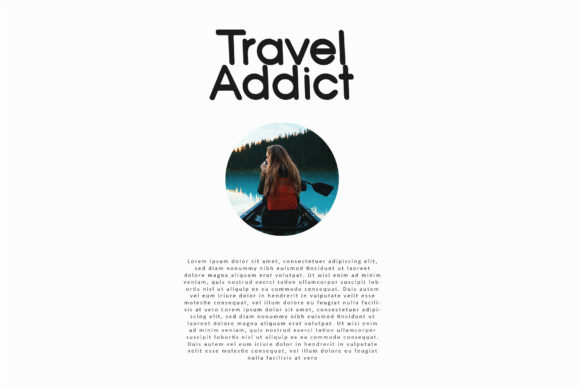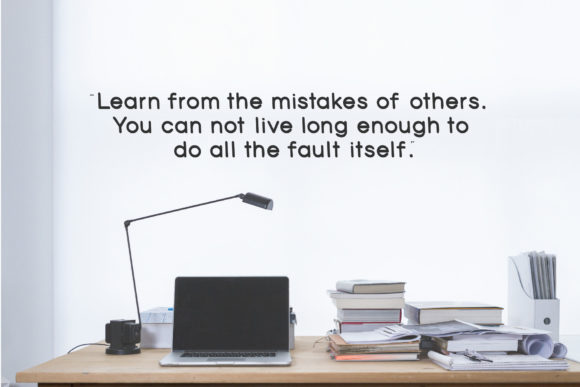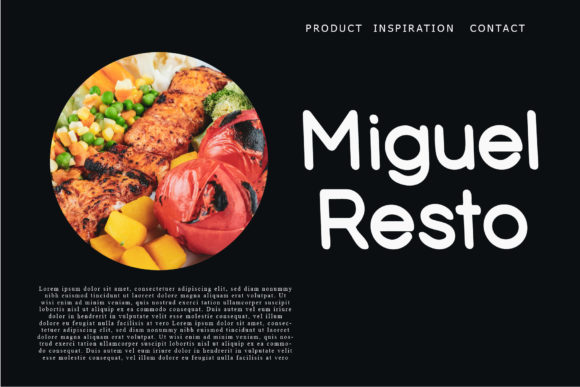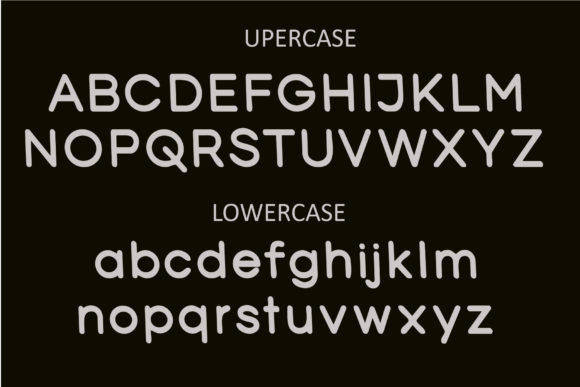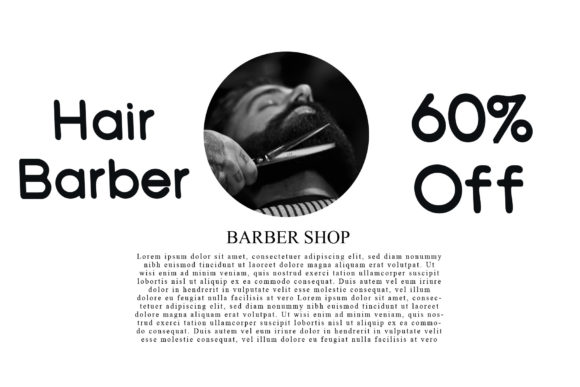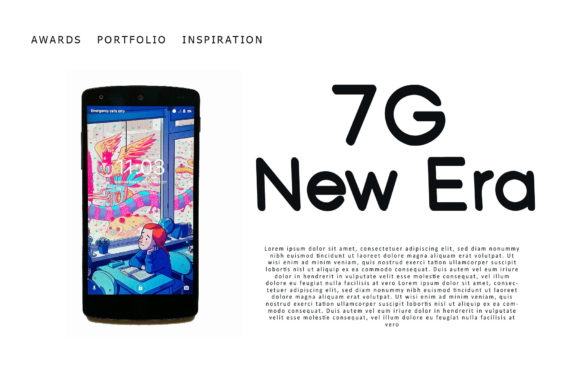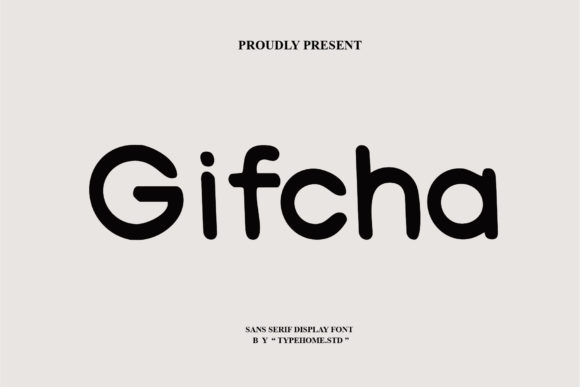
Gifcha Font: Elevate Your Designs with a Cool, Modern, and Authentic Display Font
In the world of digital design, typography plays a crucial role in conveying messages, expressing creativity, and capturing the audience’s attention. For designers and crafters looking for a font that embodies modernity, authenticity, and a touch of minimalism, Gifcha Font is an excellent choice. This versatile display font is perfect for a wide range of design projects, from web designs and business cards to posters, flyers, and more.
What Makes Gifcha Font Stand Out?
Gifcha Font is described as a cool, modern, and authentic display font. Its unique characteristics make it an ideal choice for designers who want to add a trendy touch to their work. Here are some key features that set Gifcha Font apart:
- Modern Aesthetic: Gifcha Font boasts a contemporary look that aligns with current design trends. Its sleek lines and stylish curves make it perfect for projects that require a fresh and modern feel.
- Authentic Touch: Despite its modernity, Gifcha Font maintains an authentic charm that prevents it from feeling too generic or overused. This balance of modernity and authenticity makes it versatile for various design applications.
- Minimalist Appeal: The font’s minimalist design ensures that it can be used in a variety of contexts without overwhelming the content. Its clean lines and simple structure make it easy to read and visually appealing.
Uses of Gifcha Font
Gifcha Font’s versatility is one of its strongest assets. Here are some of the many ways you can use this font in your designs:
- Web Designs: Gifcha Font is ideal for website headers, titles, and any prominent text that needs to make an impact. Its modern look can enhance the overall aesthetic of a website, making it more engaging for visitors.
- Business Cards: For business cards, a font can make or break the first impression. Gifcha Font, with its stylish and professional appearance, can help convey a sense of modernity and sophistication.
- Print Materials: Beyond digital use, Gifcha Font can also be used in print materials such as posters, flyers, brochures, and magazines. Its clear and stylish appearance ensures that your message stands out.
- Social Media Graphics: In the age of social media, eye-catching graphics are crucial. Gifcha Font can be used to create engaging social media posts, stories, and banners that capture attention.
Tips for Using Gifcha Font Effectively
To get the most out of Gifcha Font, consider the following tips:
- Pair with Complementary Fonts: While Gifcha Font is stunning on its own, pairing it with complementary fonts can enhance its beauty. Choose fonts that contrast with Gifcha’s sleek design to create visual interest.
- Use Appropriate Colors: The right color scheme can make Gifcha Font pop. Experiment with different colors to find the perfect match for your design. Neutral backgrounds often allow Gifcha to shine.
- Play with Sizes: Gifcha Font’s impact can be amplified by varying the sizes. Use larger sizes for headings and smaller sizes for body text to create a hierarchy of information.
Gifcha Font is a powerful tool for designers and crafters looking to add a cool, modern, and authentic touch to their work. Its versatility, combined with its stylish and minimalist design, makes it suitable for a wide range of projects. By incorporating Gifcha Font into your designs, you can ensure that your work stands out in a crowded digital landscape. Whether you’re creating web designs, business cards, or print materials, Gifcha Font is an excellent choice for adding a trendy and professional touch.